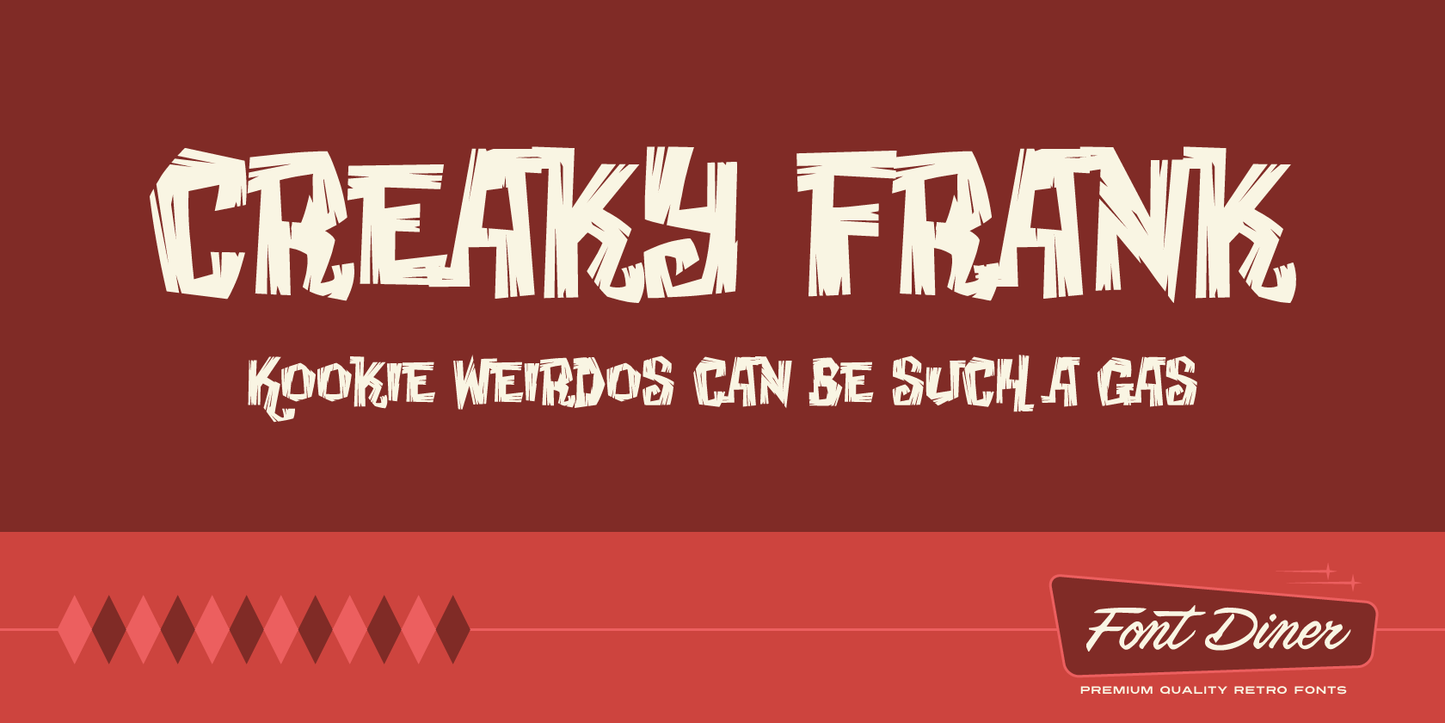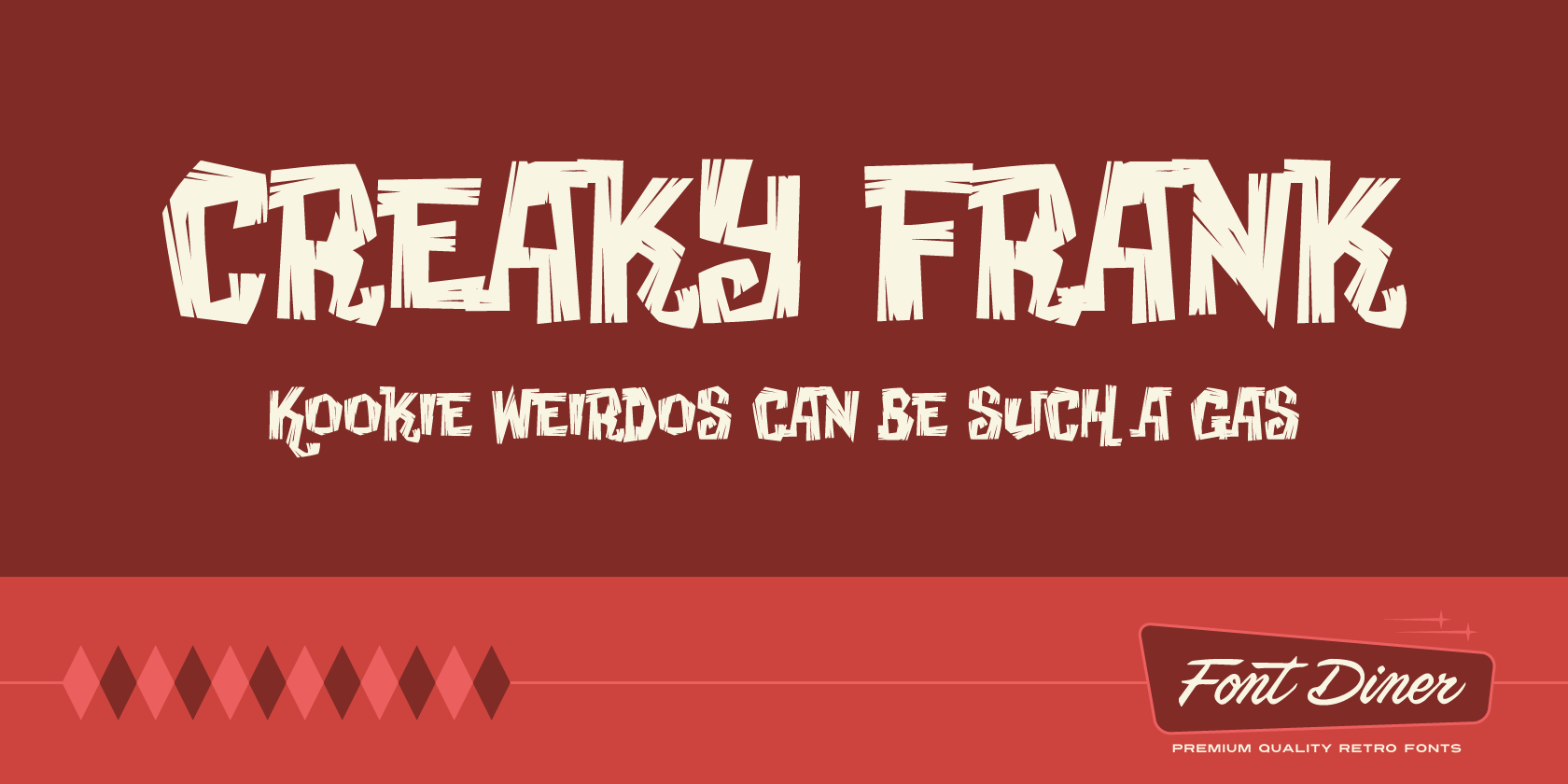
I threw the first switch! The electrical storm raging overhead provided the jolt needed to spark life into my unholy little monsters! I threw the second switch! 10,000 volts of lightning-charged energy coursed through each and every character! At first I thought the experiment a complete failure until suddenly I saw the slow, sporadic wiggles of the serifs and the nervous quiver of the ascenders and descenders!! IT’S ALIVE I TELL YOU!!! IT’S ALIIIIIVE!!!
Creaky Frank Font
Creaky Frank
I threw the first switch! The electrical storm raging overhead provided the jolt needed to spark life into my unholy little monsters! I threw the second switch! 10,000 volts of lightning-charged energy coursed through each and every character! At first I thought the experiment a complete failure until suddenly I saw the slow, sporadic wiggles of the serifs and the nervous quiver of the ascenders and descenders!! IT’S ALIVE I TELL YOU!!! IT’S ALIIIIIVE!!!